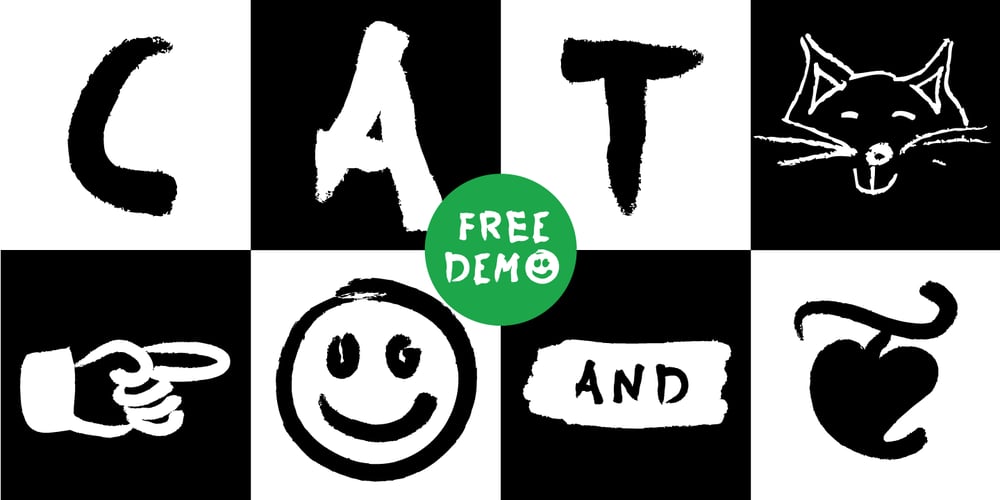
Cat Finger
Cat Finger font
Cat Finger Font Family was designed by Manuel Viergutz and published by TypoGraphicDesign. Cat Finger contains 12 styles and family package options. The typeface Cat Finger is designed from 2021 for the font foundry Typo Graphic Design by Manuel Viergutz × Carmen Thiemer.The display font based on the human hand. Started analog with acrylic paint, a finger and a white paper. After scanning, a digital brush was created. With the help of a touch tablet, this brush was used as a writing tool. One font-stlye written with the left hand (left) and one with the right hand (right).